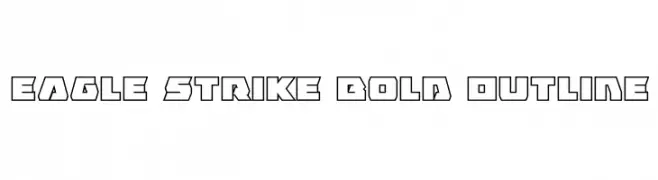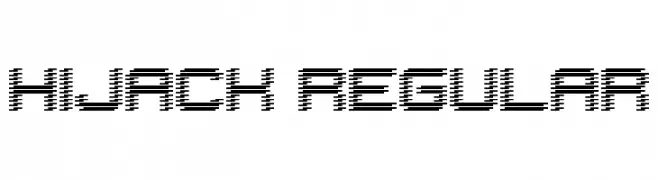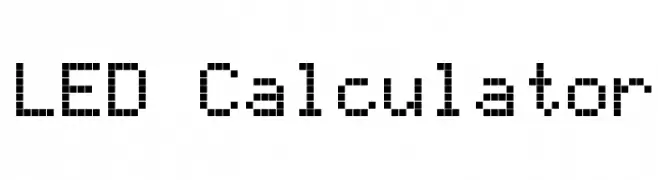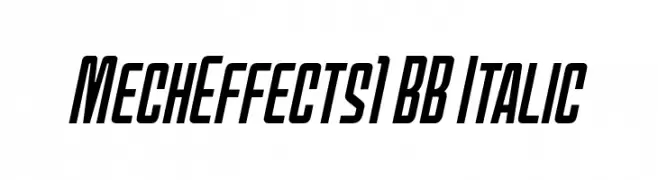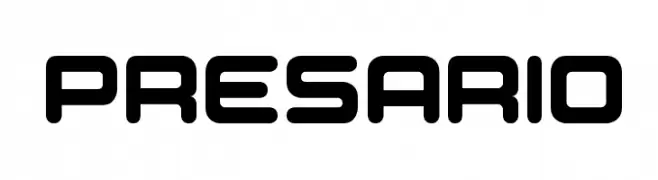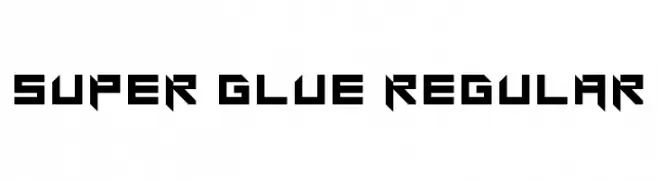
A futuristic, pixelated font with a high-tech aesthetic.
A bold, italicized font with a futuristic and mechanical style.
A pixelated, grid-based font inspired by digital displays.
A bold, geometric font with a futuristic and edgy style.
A bold, geometric outline font with a futuristic style.
A bold, futuristic font with geometric and industrial design elements.